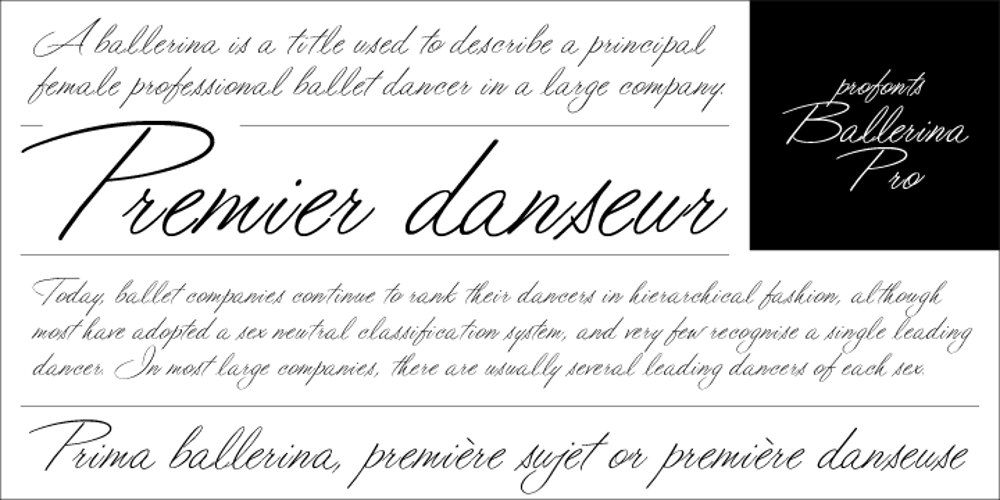
Ballerina Font Family was designed by URW++ and published by profonts. Ballerina contains 1 styles and family package options. Ballerina Pro… sounds like music, ballet, elegance and classic quality. That’s exactly how Ballerina Pro carries the message to the reader. Ballerina Pro is a more of a formal script, light-weighted and quite beautiful, redesigned, digitized, completed and expanded as OpenType in the profonts type studio.Ballerina Pro comes with round about 600 characters covering the complete Latin glyph set for West and East including Baltic and Turkish. Additionally, there is a large selection of manually designed character combinations and alternates to make this beautiful script design a perfect font for OTF-savvy applications like e.g. InDesign or Quark Xpress 7.Ballerina Pro is a very distinguished, elegant and versatile script font well-suited for anything in the area of ballet, classical music, art, ballet etc. Also, it is good for certificates, reports, documents and alike.